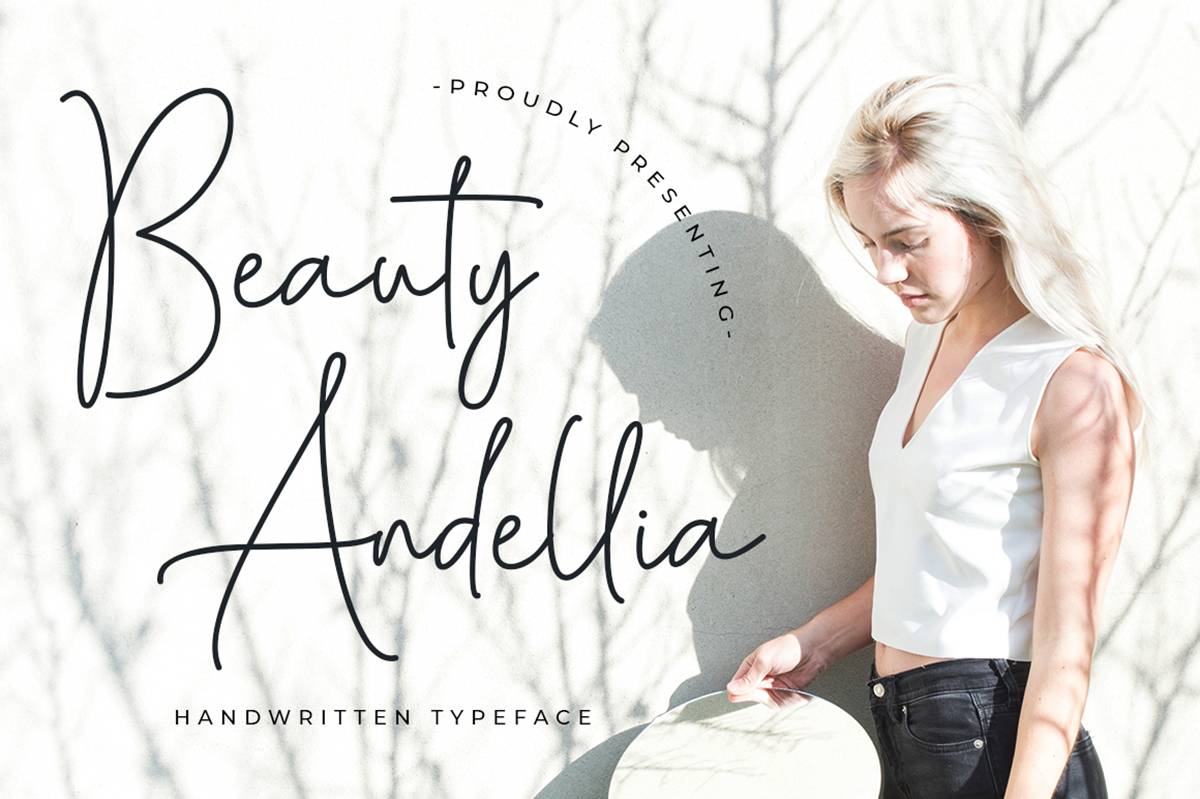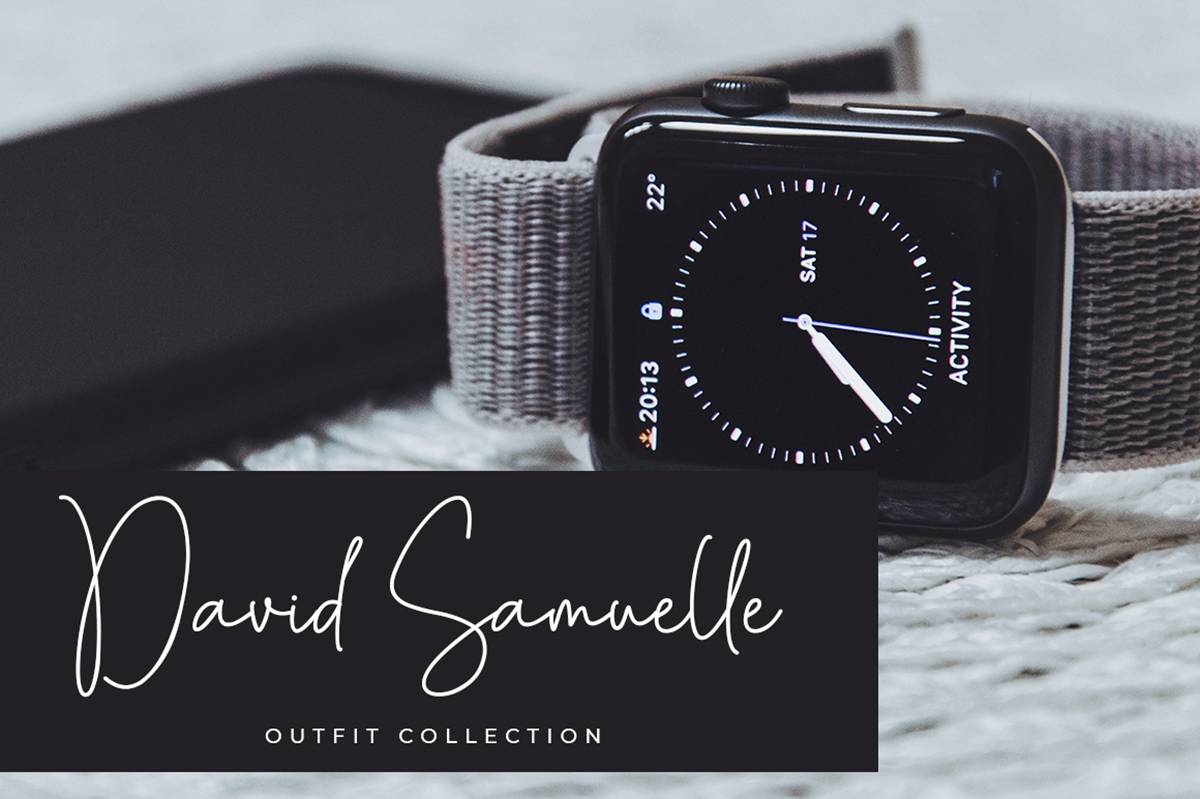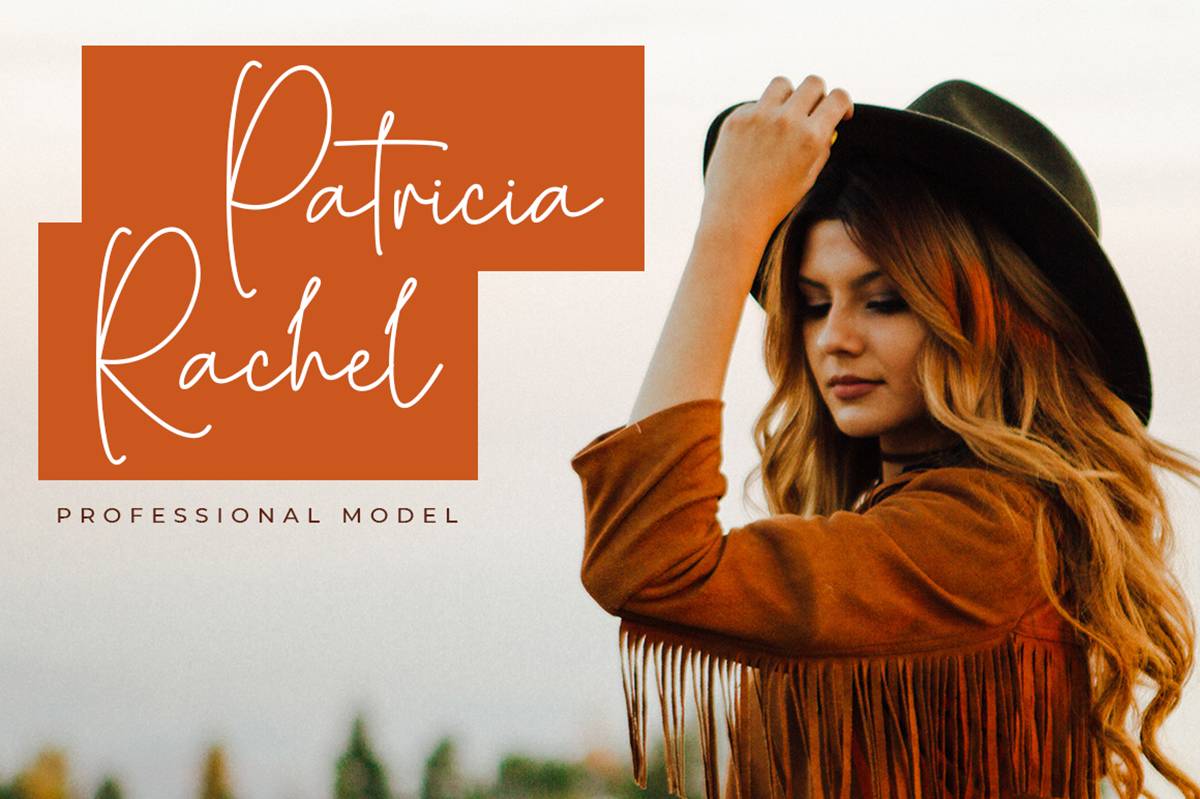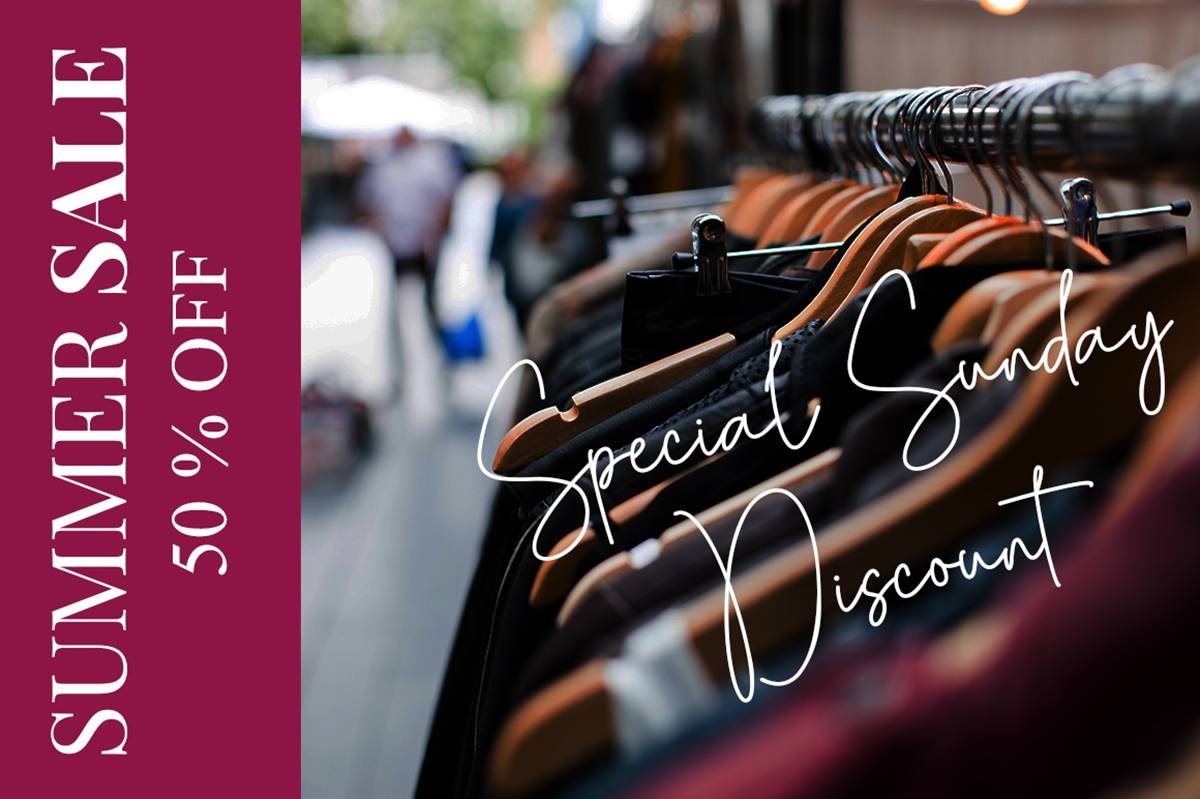
Beauty Andellia is a delicate and elegant handwritten script font characterized by its tall, thin strokes and graceful, flowing letterforms. With its slender lines and subtle irregularities, it conveys a personal, artistic vibe, making it perfect for creative branding, invitations, and stylish editorial use. This font’s refined yet playful nature adds a unique charm to projects that seek a sophisticated but approachable look.
Beauty Andellia Font
About Beauty Andellia Font